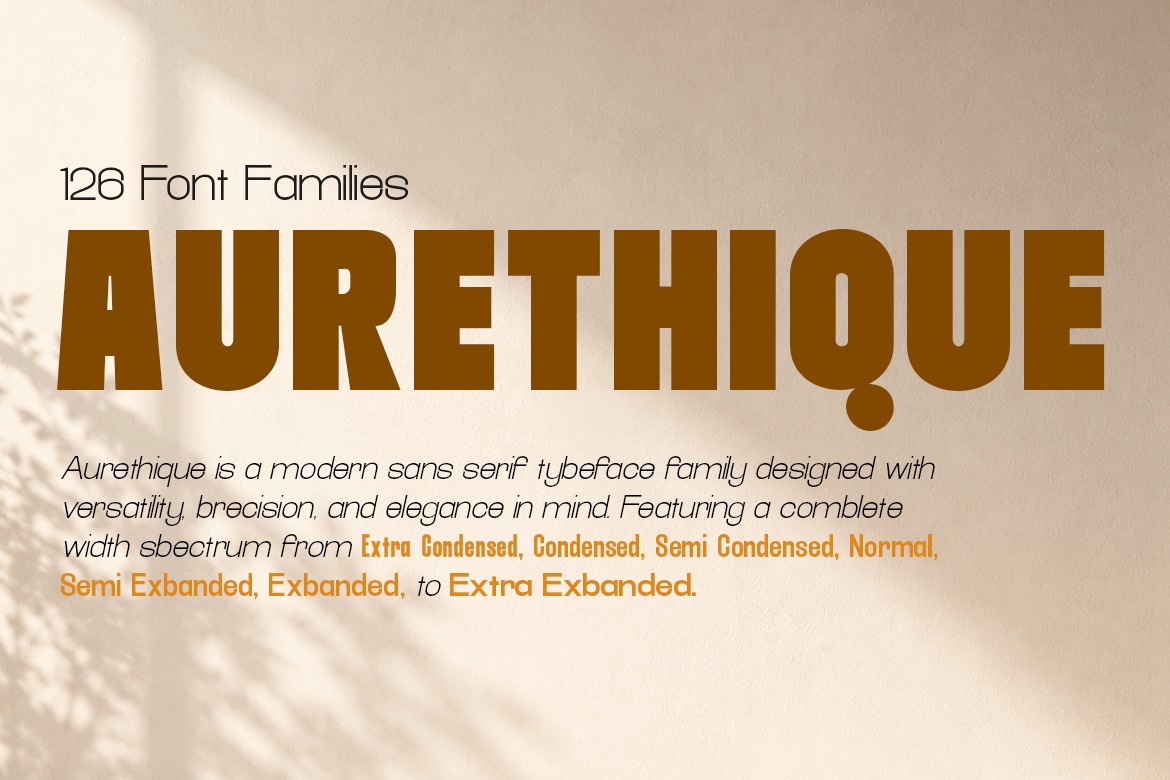
Aurethique Font Family
Aurethique Font Family is a professionally designed typeface that delivers clarity, structure, and consistent performance across various design applications. Aurethique is a modern sans serif typeface family designed with versatility, precision, and elegance in mind. Featuring a complete width spectrum from Extra Condensed, Semi Condensed, Normal, Semi Expanded, to Extra Expanded, ** Aurethique adapts seamlessly to diverse design needs—from compact editorial layouts and impactful headlines to spacious branding and digital interfaces. Each width is available in both Plain** and Oblique styles, offering flexibility between clean geometric clarity and subtle dynamic motion. With a total of **126 font families, ** Aurethique provides an extensive typographic system suitable for professional designers seeking consistency across print, web, UI/UX, advertising, packaging, and corporate identity projects. Defined by balanced proportions, refined letterforms, and high readability, **Aurethique **combines contemporary minimalism with functional adaptability. Whether used for bold titles, elegant body text, or responsive digital environments, Aurethique delivers a cohesive visual voice that is modern, efficient, and timeless.